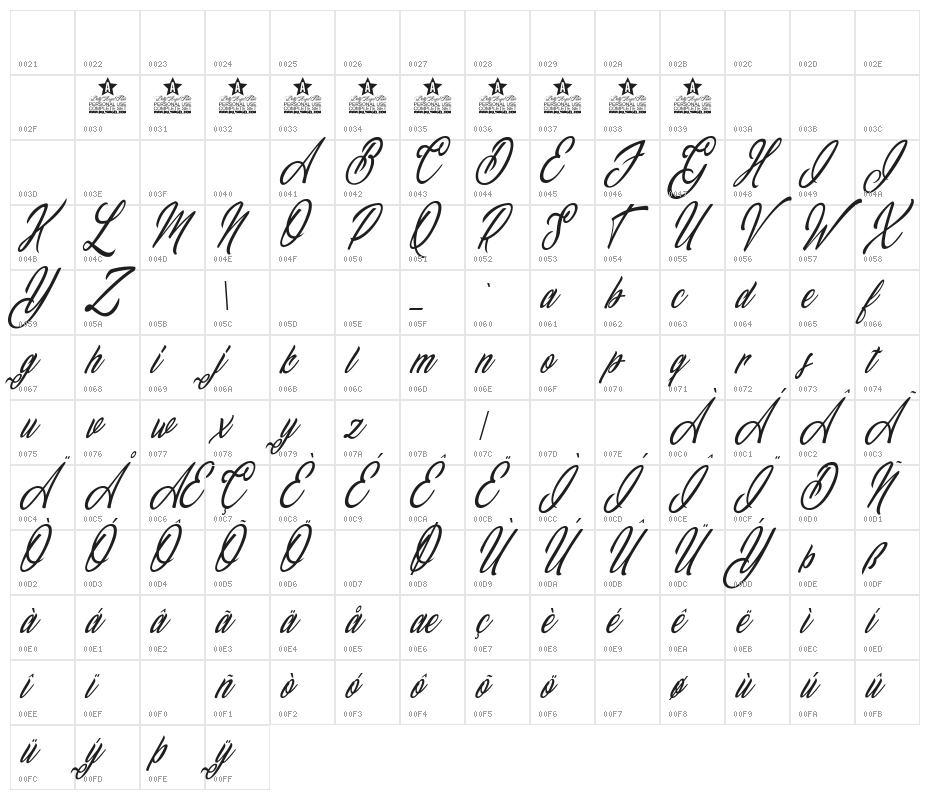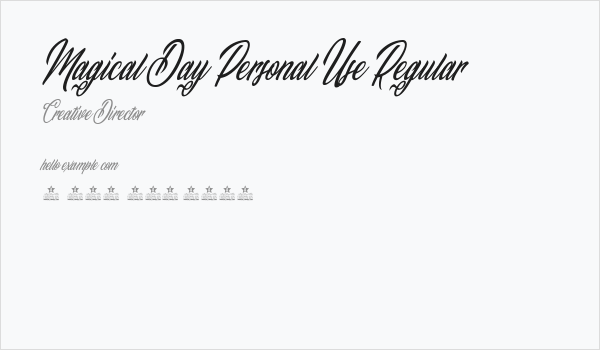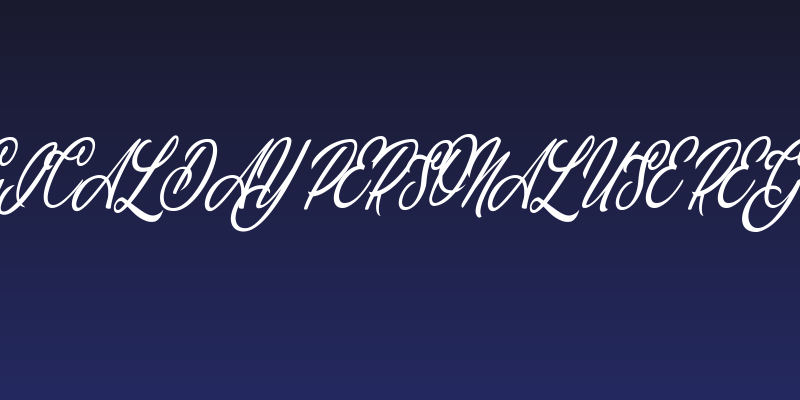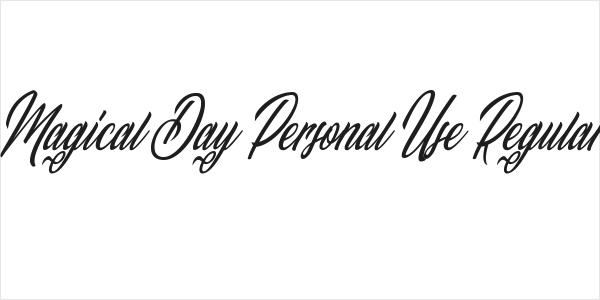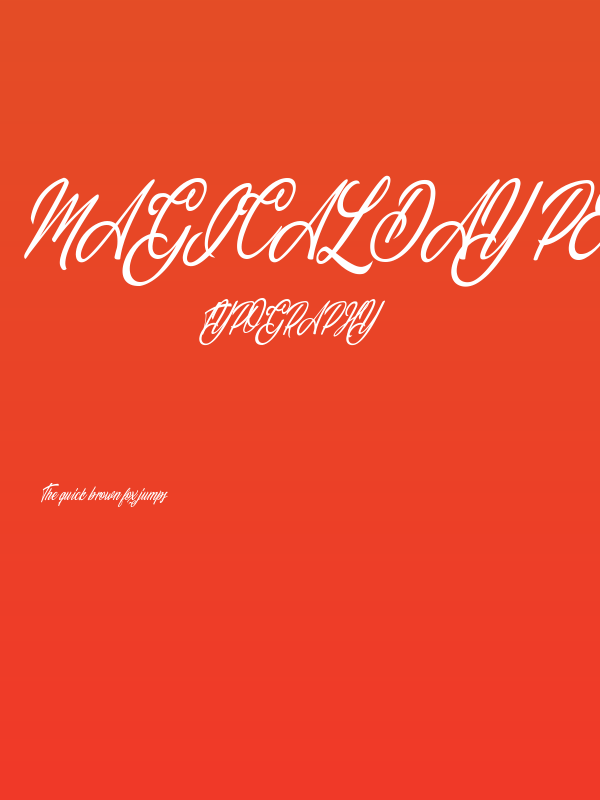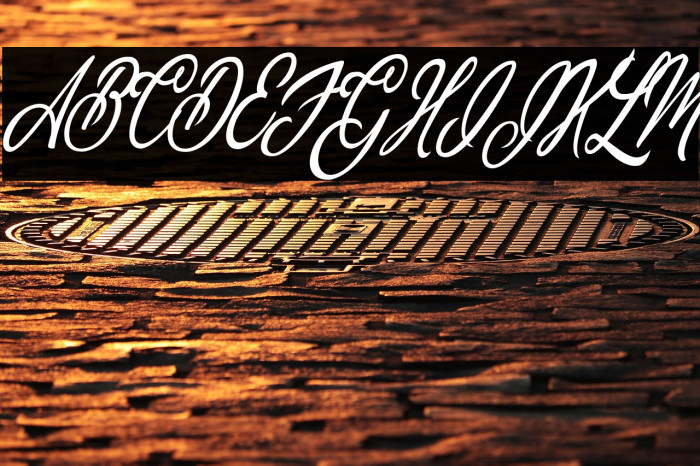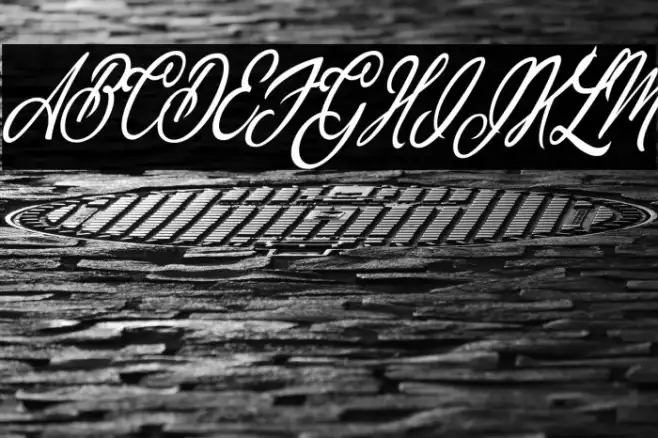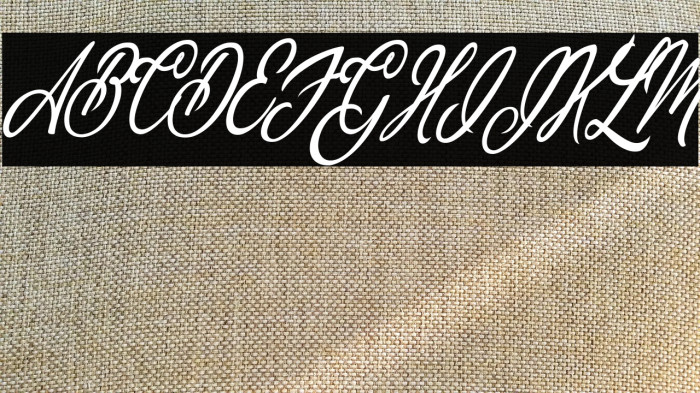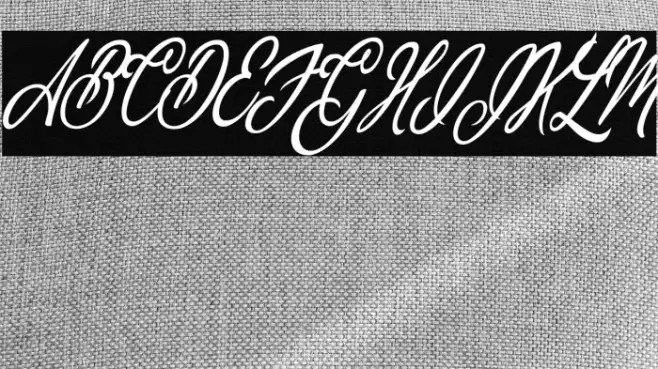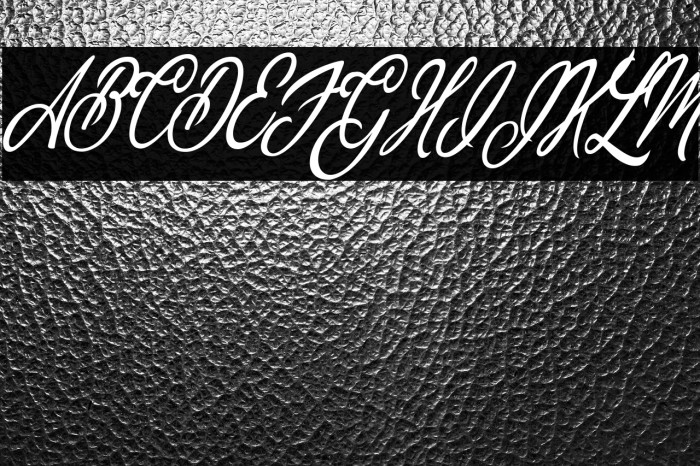
Magical Day Personal Use Regular Font
This font features an elegant, flowing script style with a sense of movement and fluidity. The characters are interconnected, creating a seamless and cohesive look. The strokes are bold and confident, with a slight slant that adds to the dynamic appearance. The uppercase letters are ornate and decorative, while the lowercase letters maintain a consistent style, enhancing readability. The font exudes a sense of sophistication and charm, making it suitable for projects that require a touch of elegance.